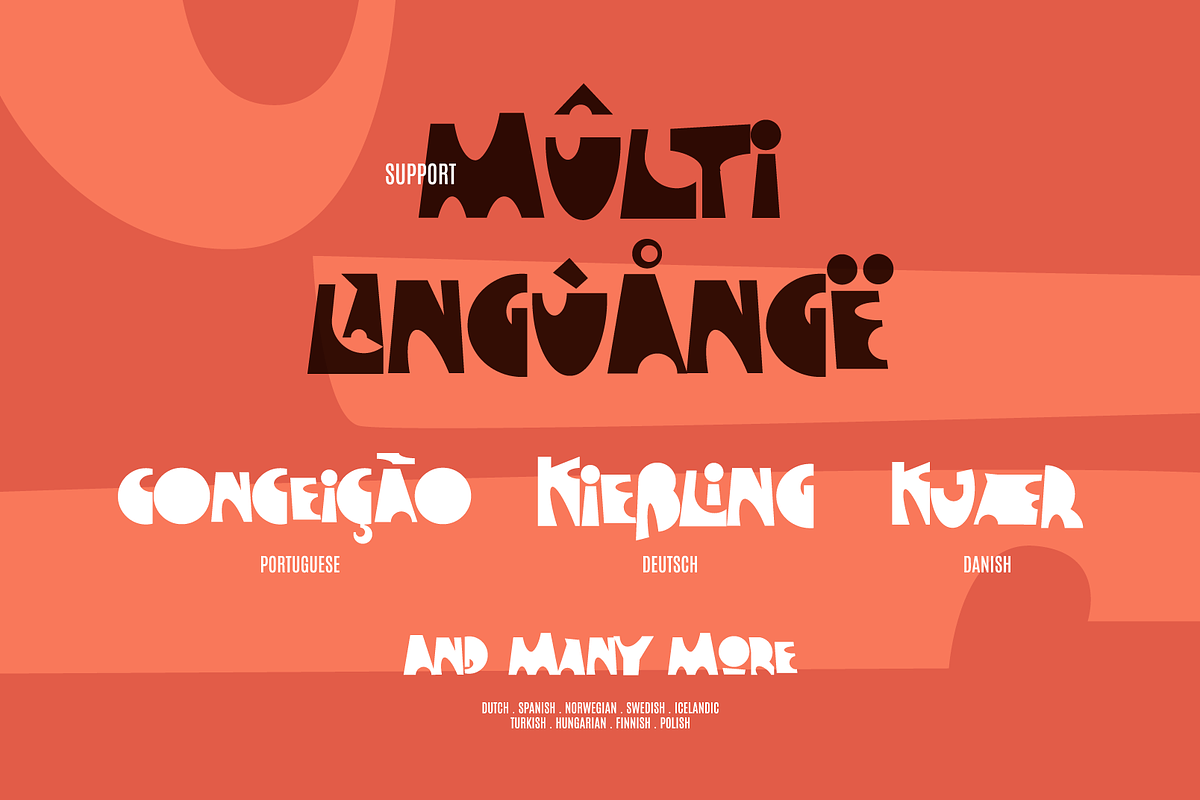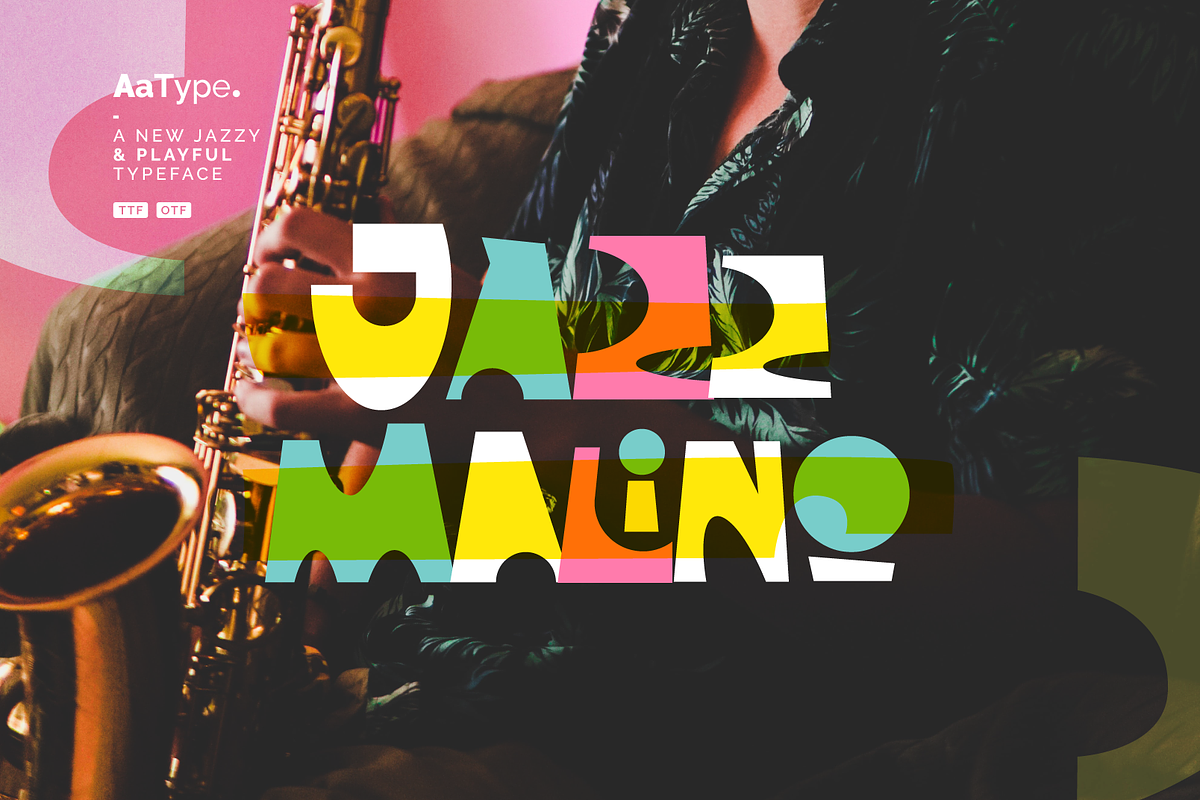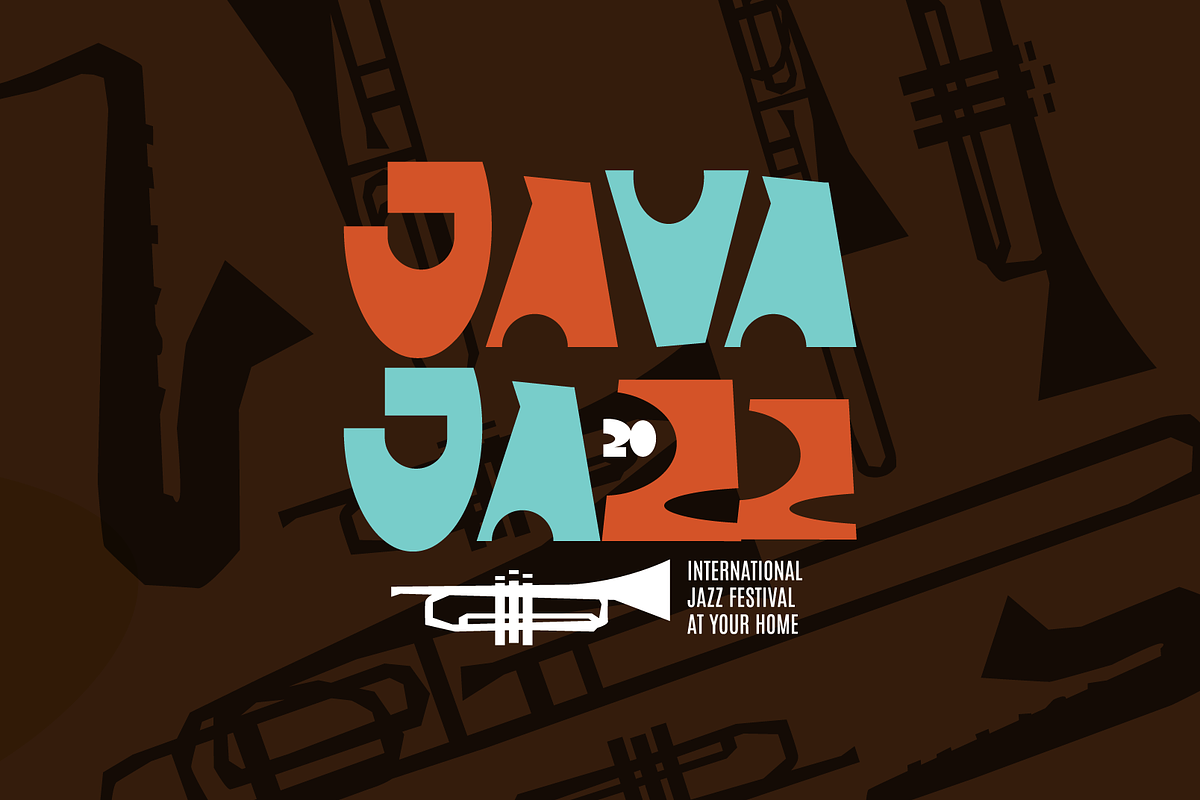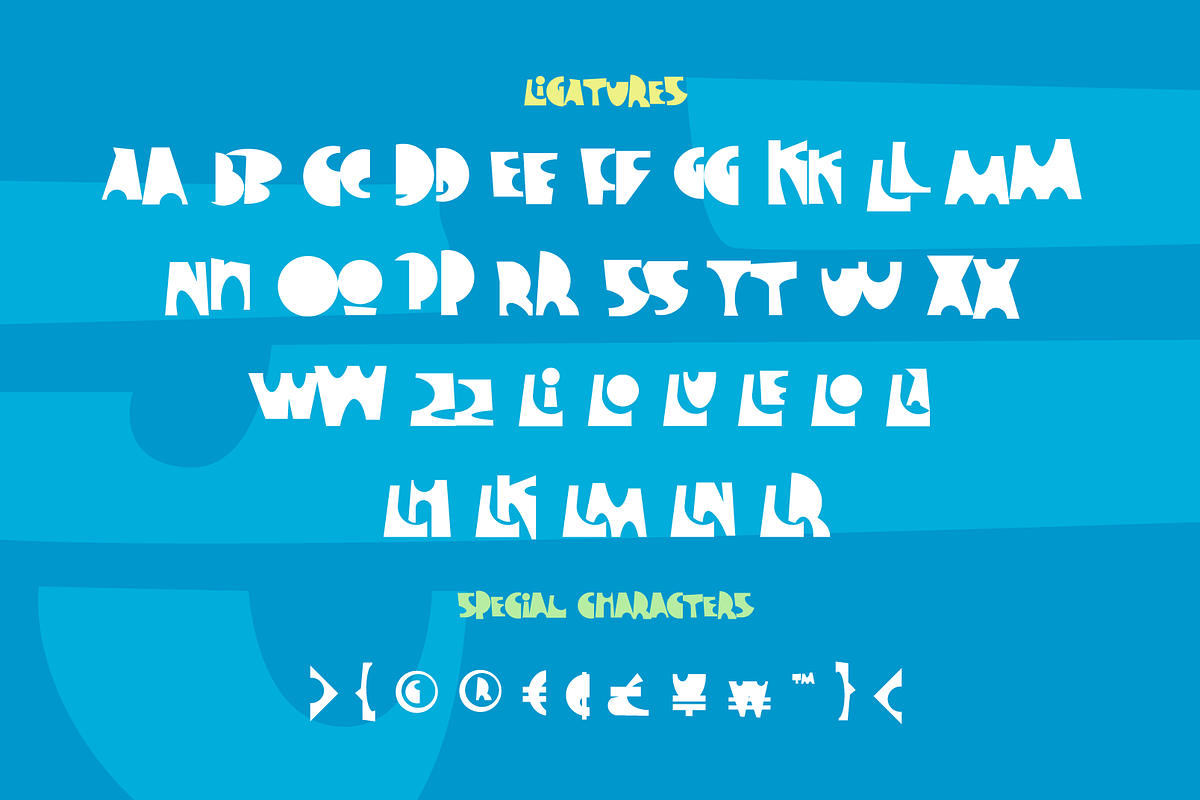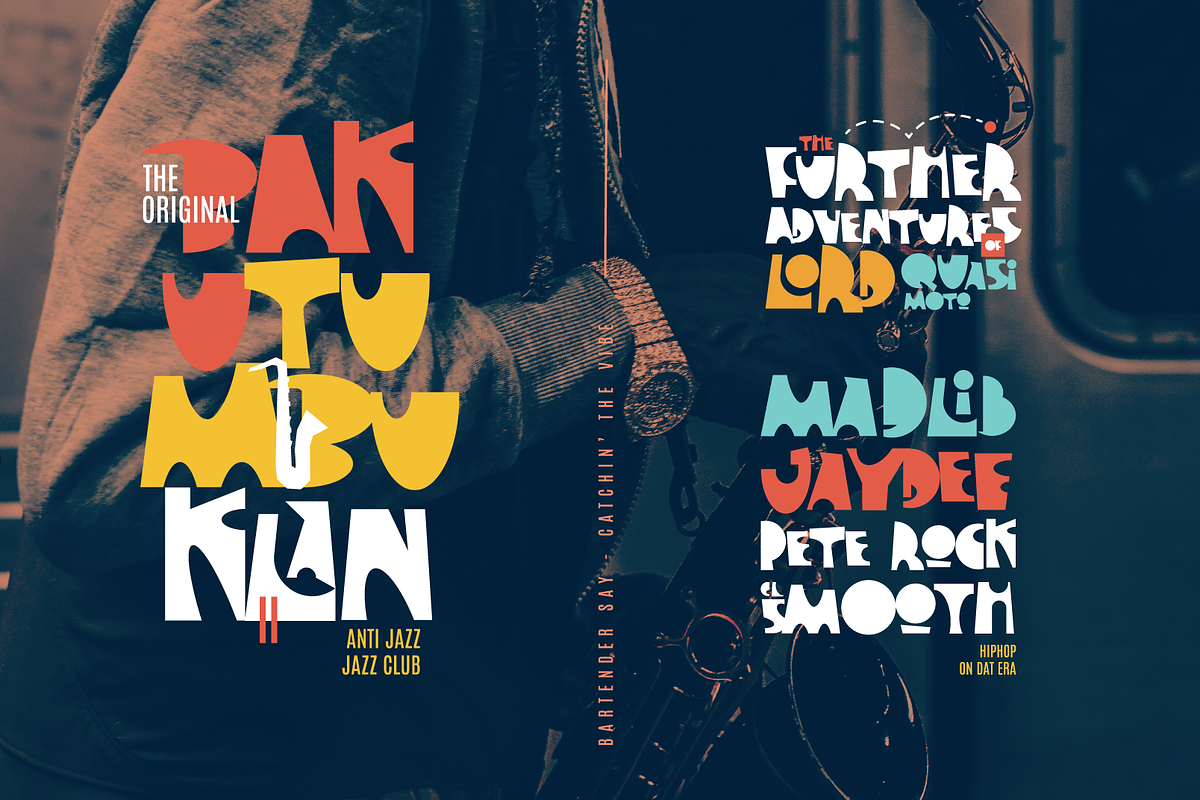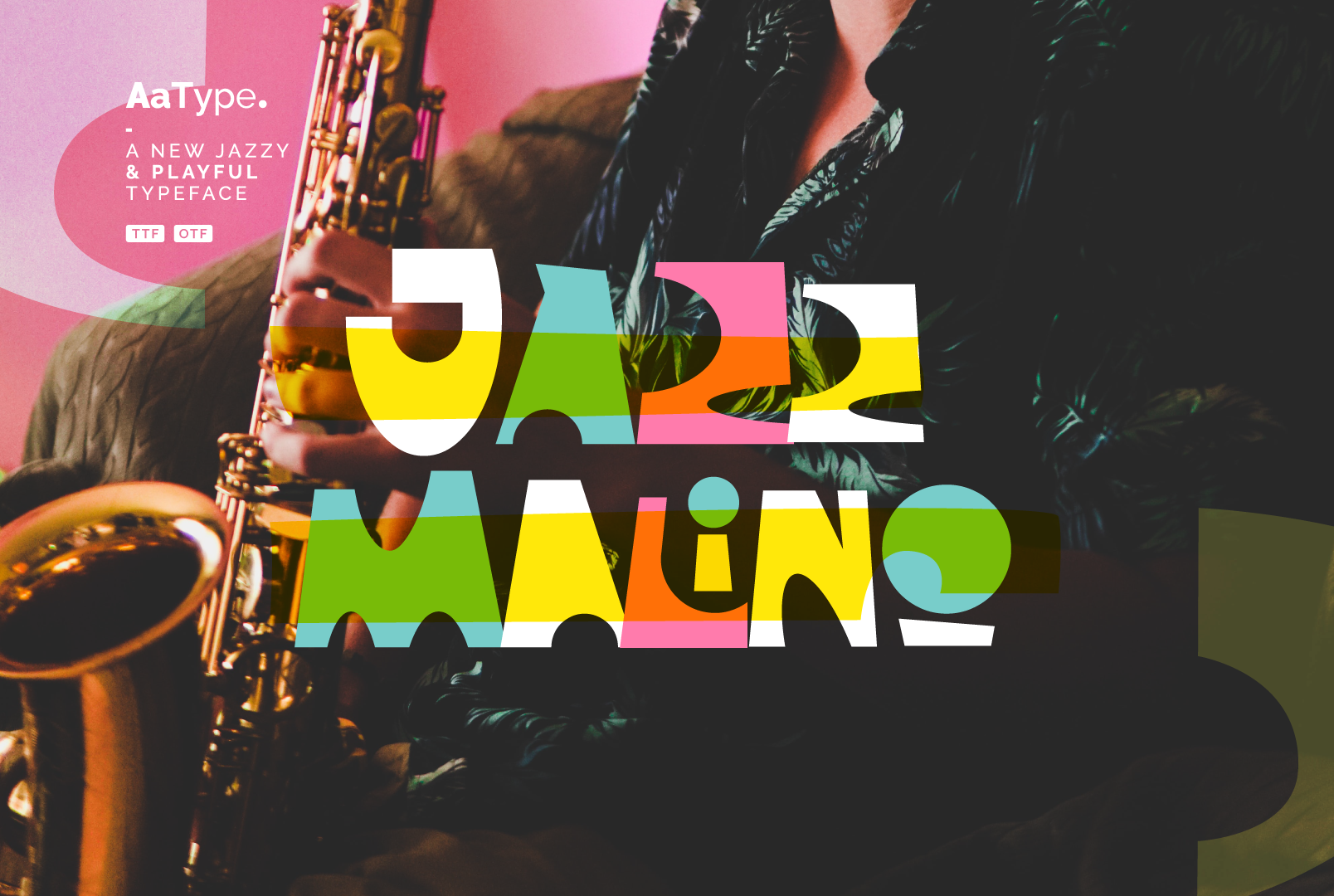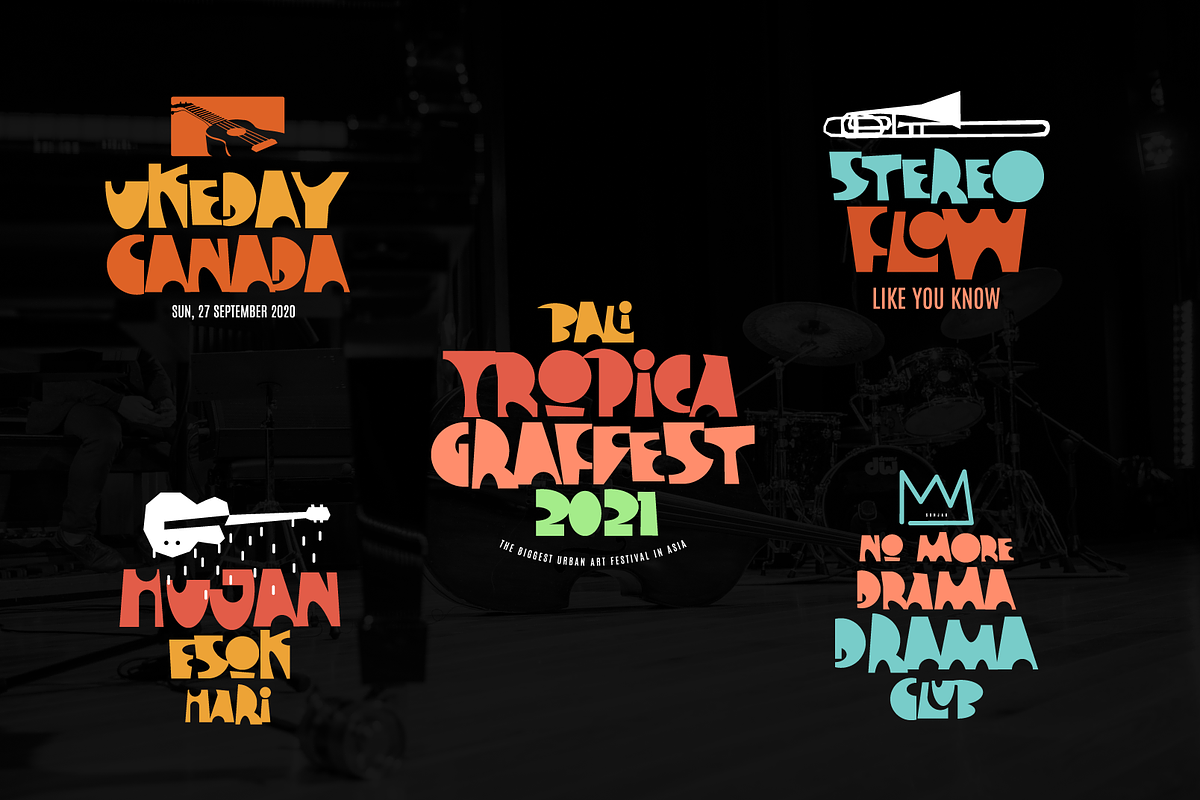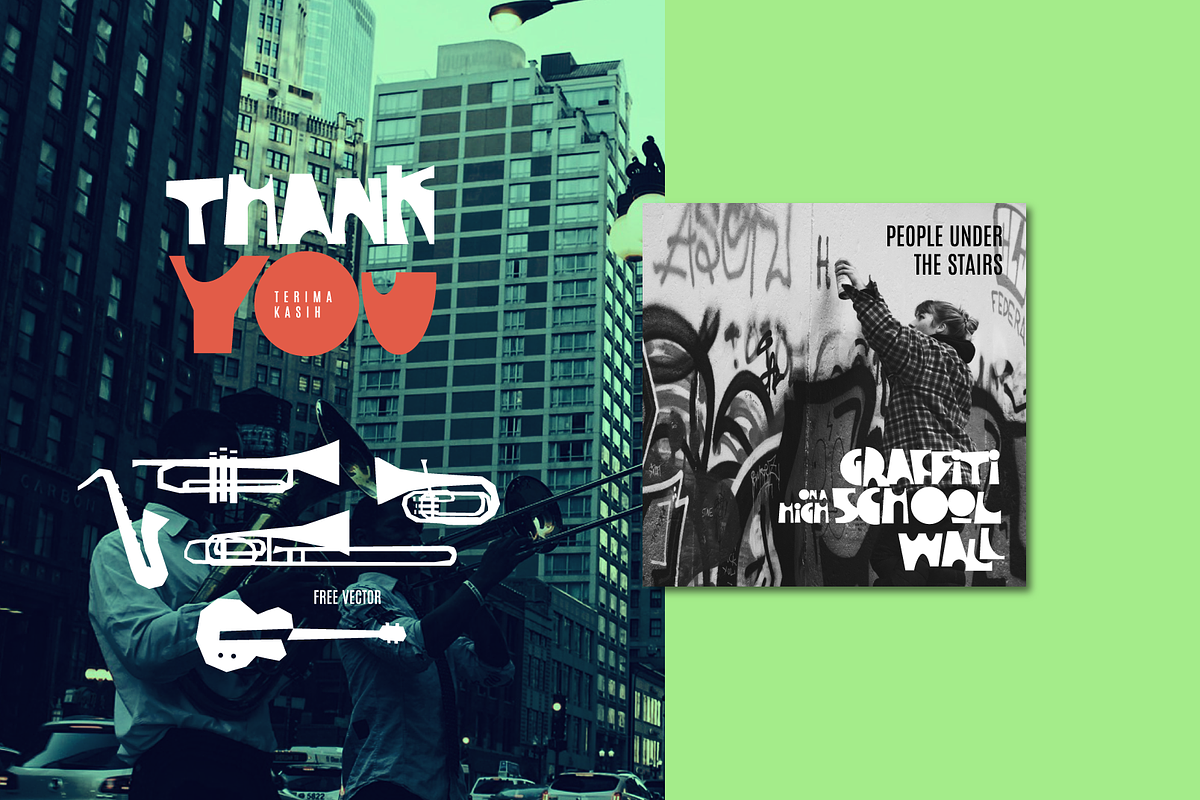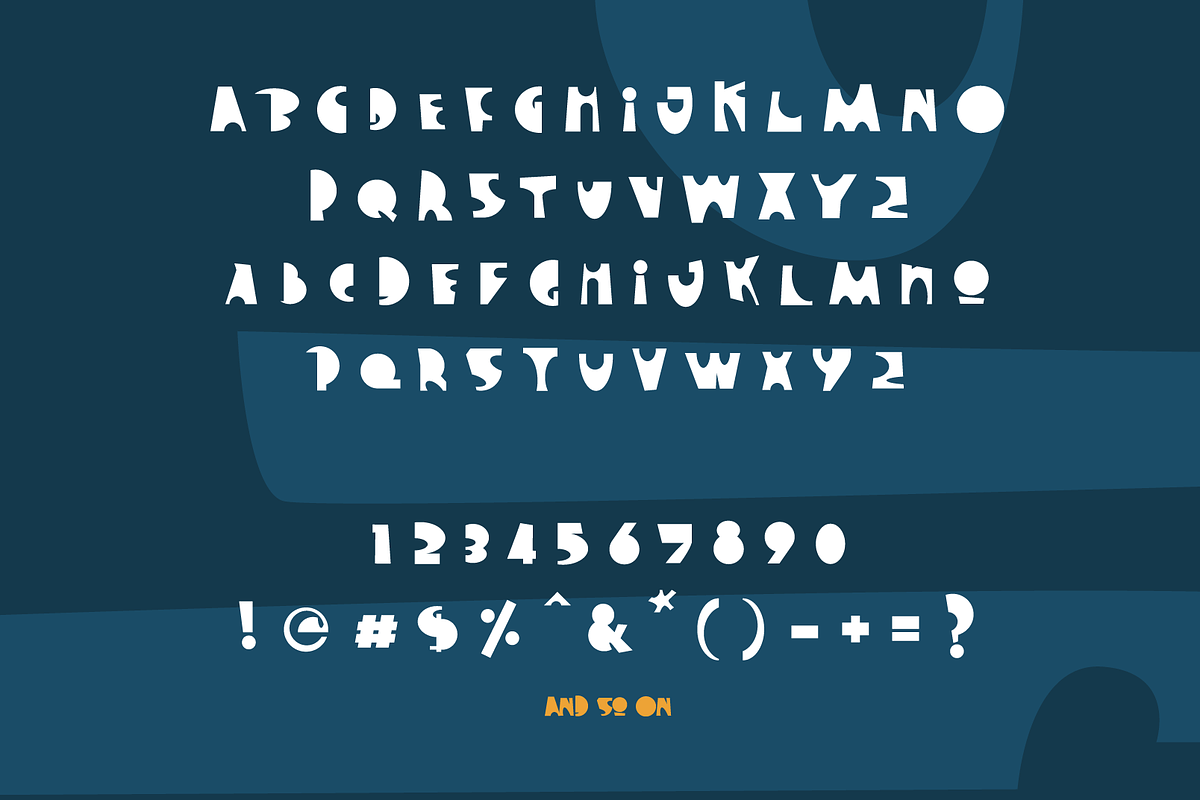
Jazz Malino Playful Font
Jazz Malino - a Jazzy & Playful Font
Hi there, this new born font called Jazz Malino will set your designs in the mood.
Jazz Malino is not just a regular boldly-square display font. This font specifically established for unique titling, display text, random and bouncy looks. It is perfect for your special branding, invitation, displays, headers, event name, blogs, poster, social media story, titling and so much more.
Jazz Malino comes with all Uppercase type, Numeral, Punctuation, Ligatures, and also Support Multiple Language, German, Portuguese, Danish, etc.